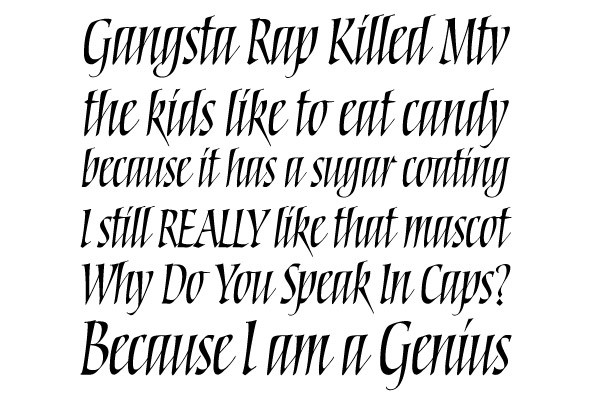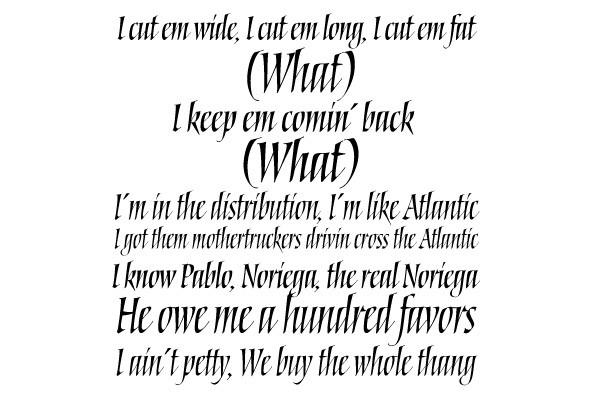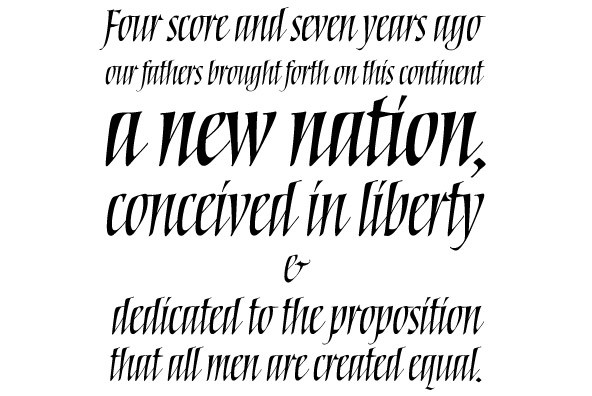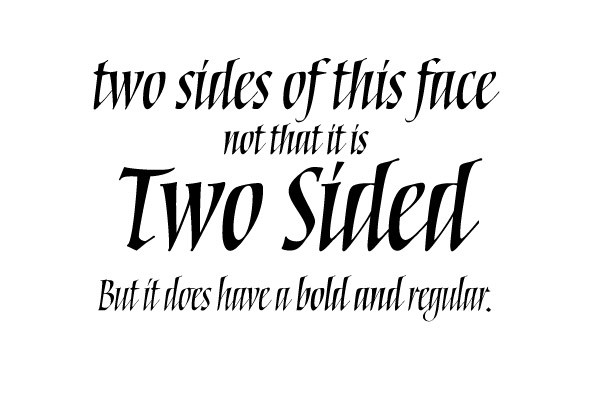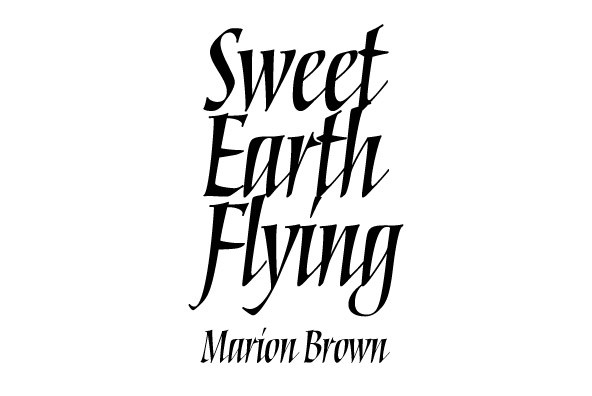
Torquemada
The Torquemada family marks the return of eminent American calligrapher Philip Bouwsma to the type scene after almost 7 years of hiatus, and he is certainly coming back with a lot of bells and whistles!
Torquemada offers the same kind of excitement that emanated from Bouwsma's work in 1970s and 1980s New York, when he was one of the most important leaders of the New Calligraphy movement that brought calligraphy forth as a mainstream art and craft, and spawned many of today's known calligraphers. Not only is this calligraphic art at its very digital finest, but it also introduces a completely new concept in drawing letters with a broad pen. Bouwsma's Torquemada Principle defines the harmony of weight, contrast, tension and space by consistently changing the angle of the broad pen between 0 and 80 degrees throughout all strokes. When the strokes become hairlines at the lowest angles, the paths made by the actual corners of the pen cross over one another, making the outline flat or slightly hollowed. This new calligraphic idea gives us the rare opportunity to quote an old Monty Python joke: Nobody expects the Spanish Inquisition!
Torquemada comes in four variations: Torquemada One regular and bold, and Torquemada Two regular and bold. The difference between Torquemada One and Two is not just a simple change in vertical metrics. The stroke proportions of each variation were also optically adjusted for maximum readability at small sizes, as well as maximum aesthetics for display work.
Torquemada's applications are virtually endless. This is a real calligraphic workhorse that has the power to elevate any design to higher levels of visual appeal. You can trust this work to be the perfect choice for book, film and music covers, titling, posters, signage, flyers, packaging and all kinds of branding.
We'd like to think of the advent of Torquemada as the beginning of a new calligraphic Renaissance. And who is better to start it than a master of calligraphy like Philip Bouwsma?